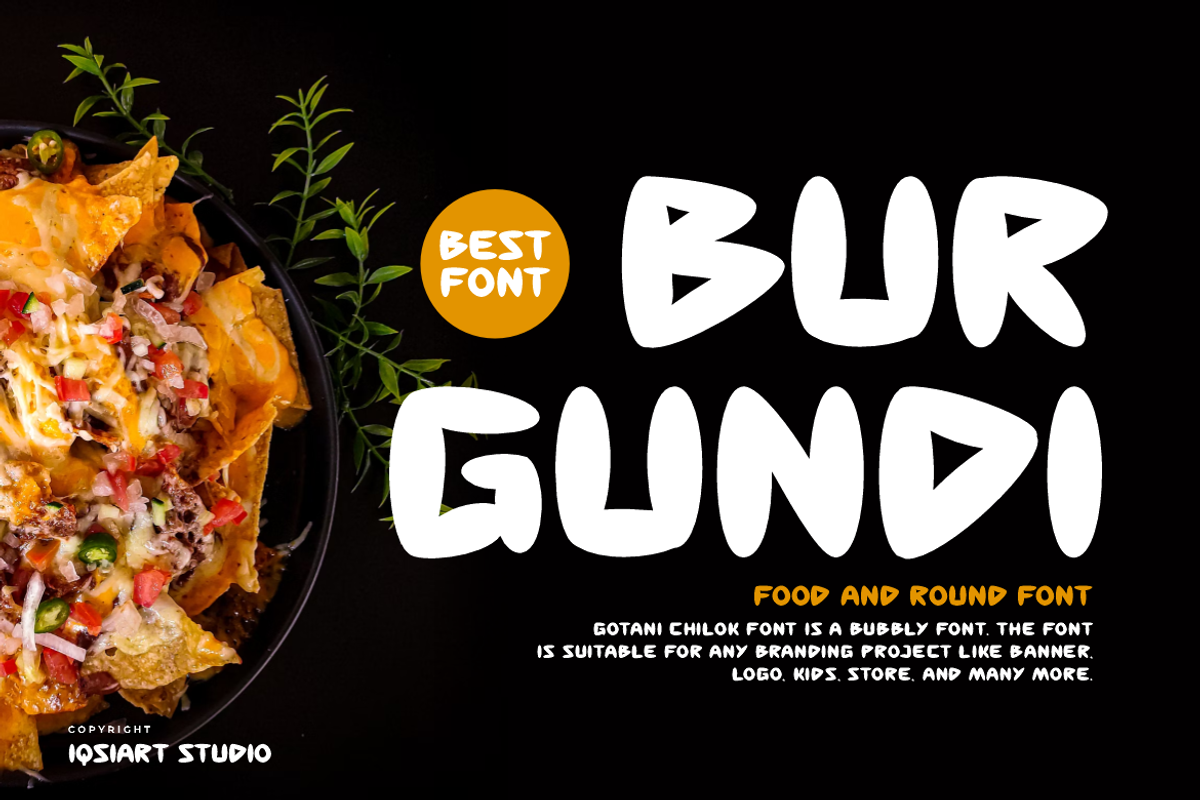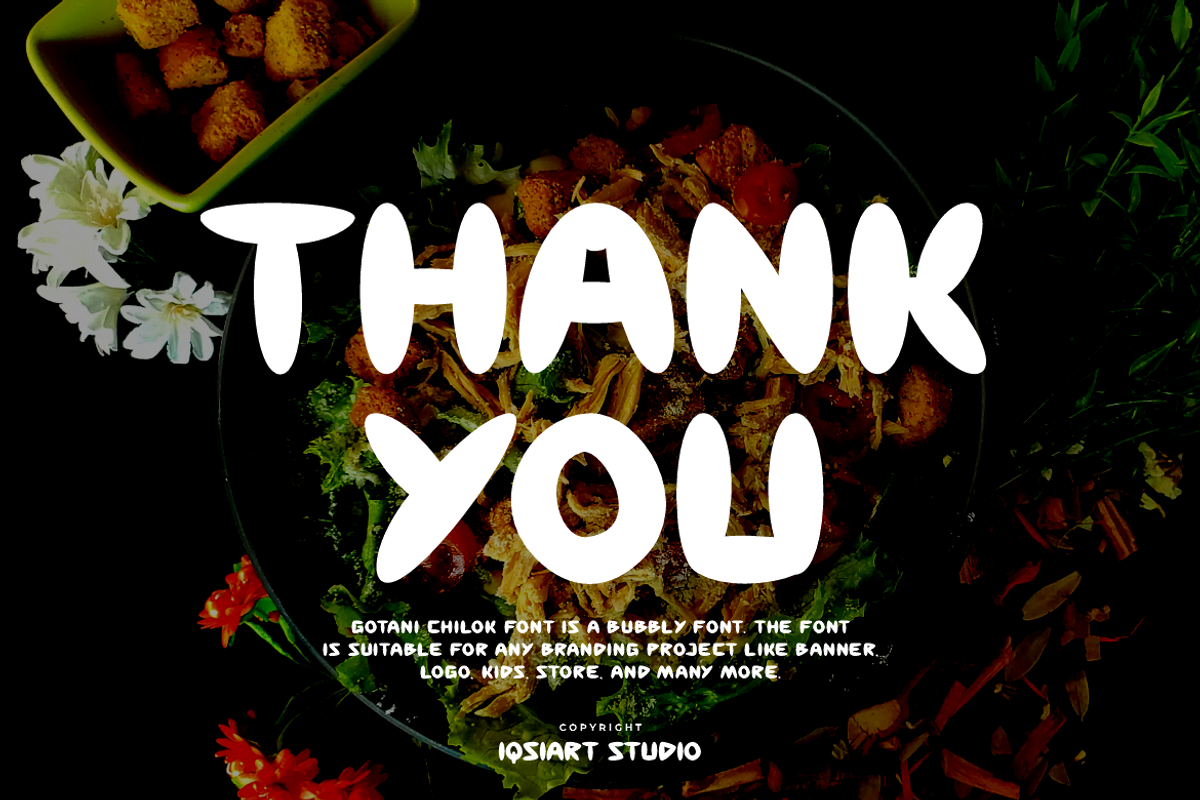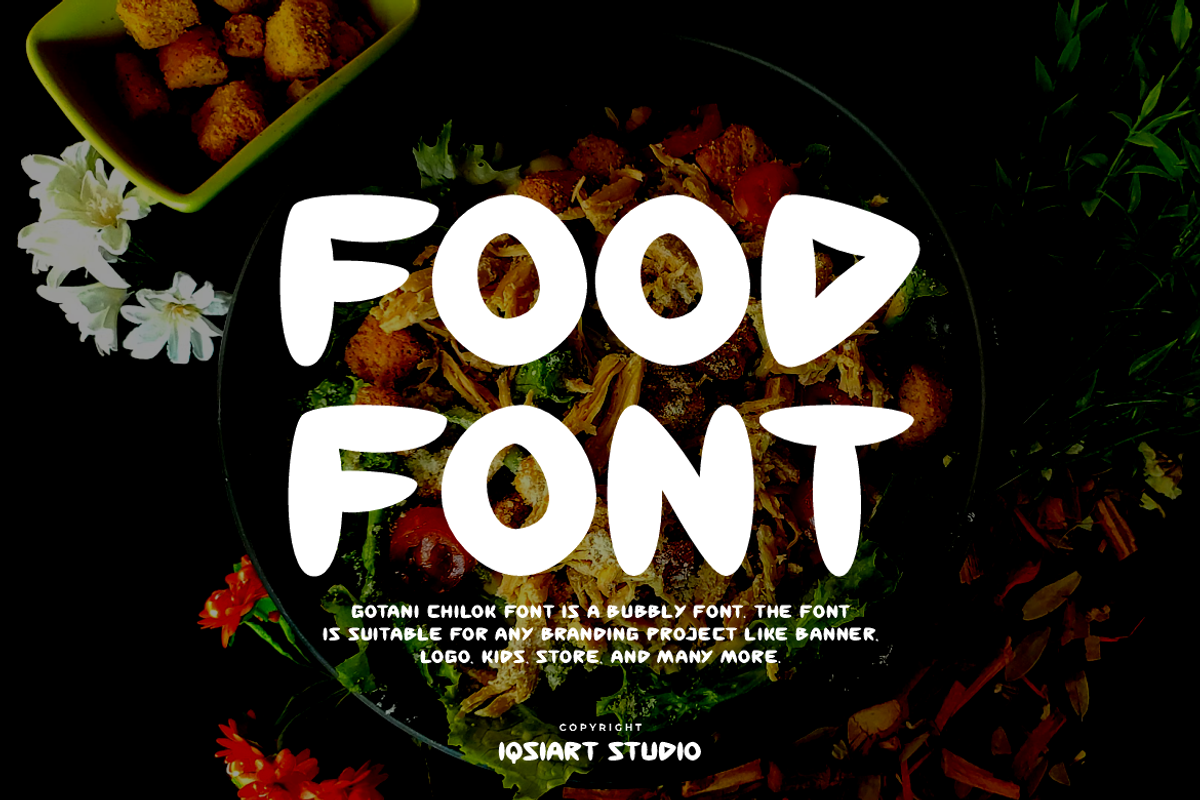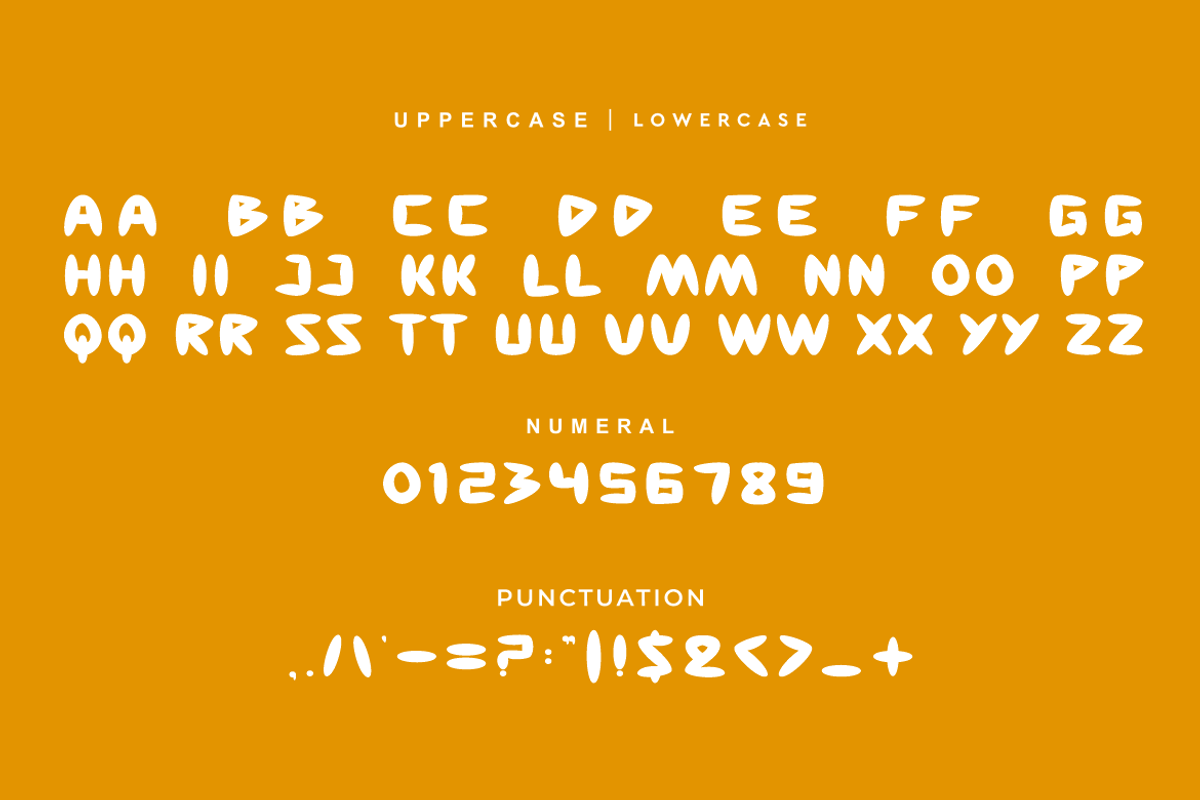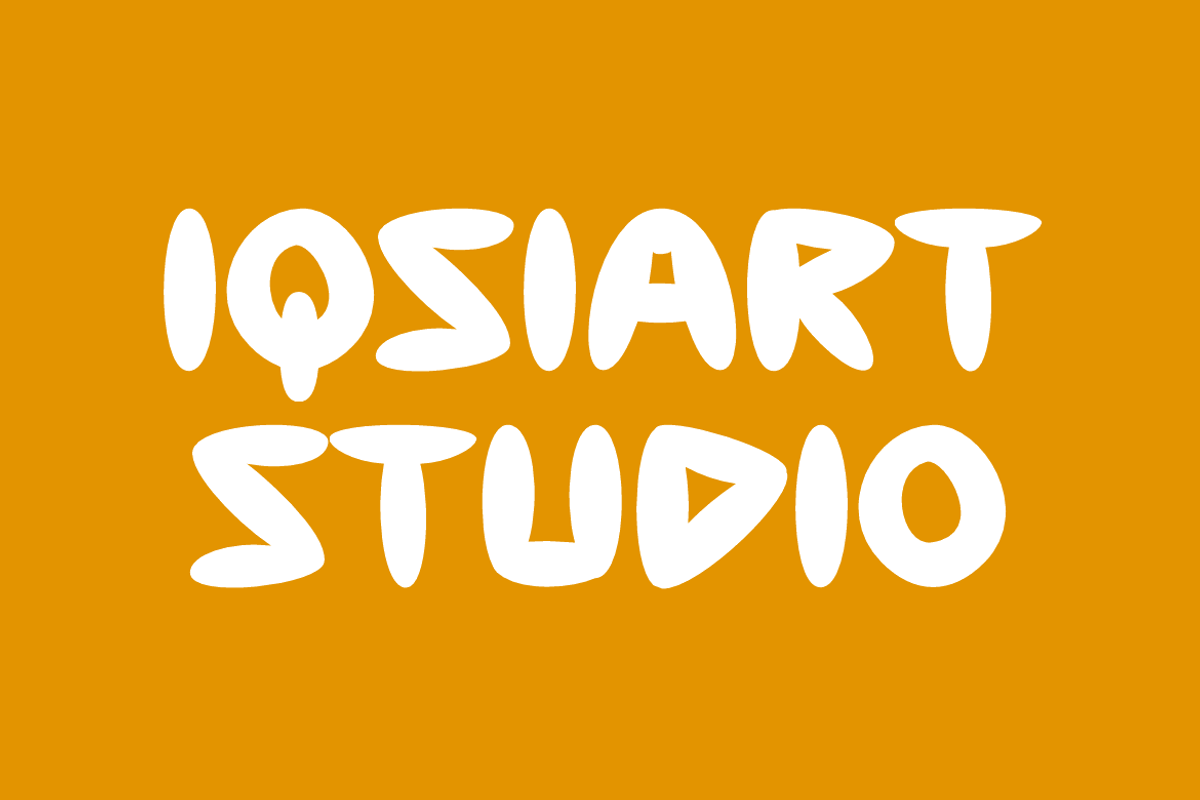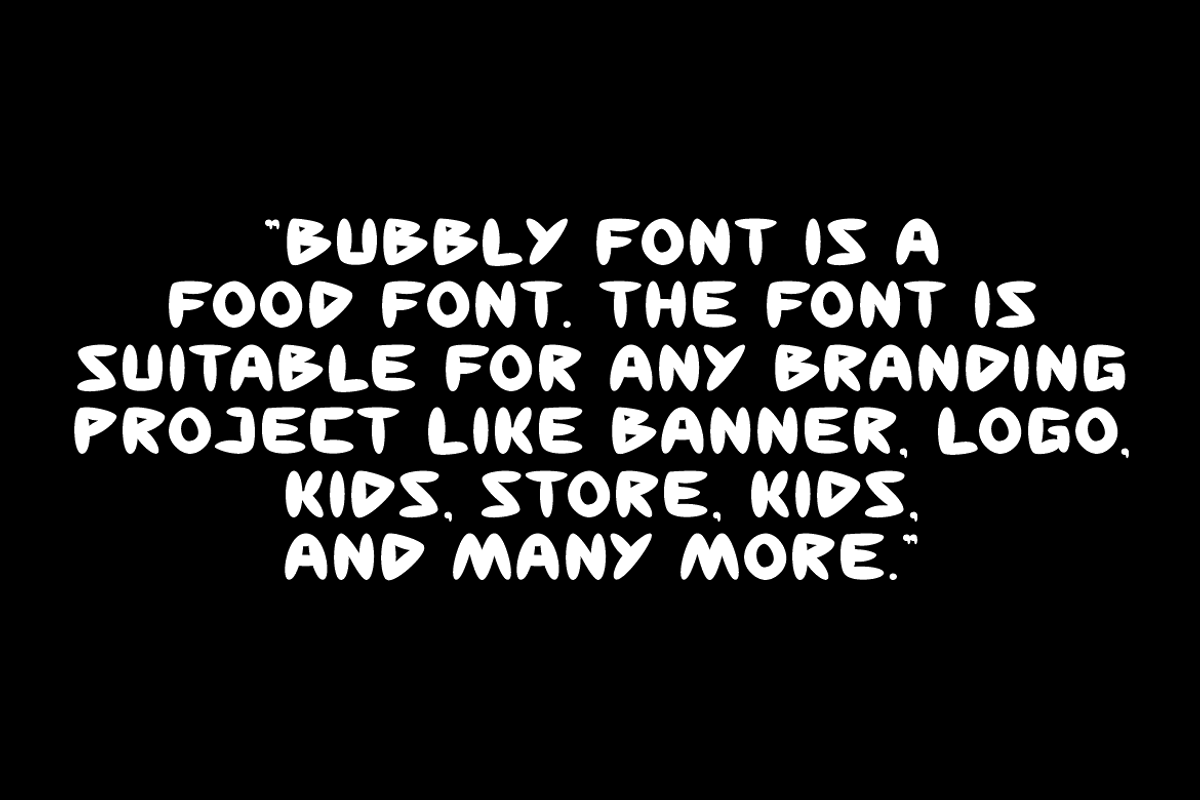
Burgundi - Food Font
Burgundi Font is a best and authentic display font. This font can be used for your various needs. We provide various themes and font styles. visit our profile to get a wide variety of themes and different font styles you need.